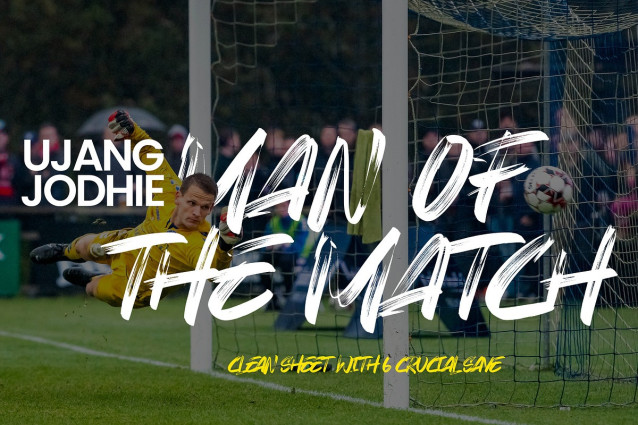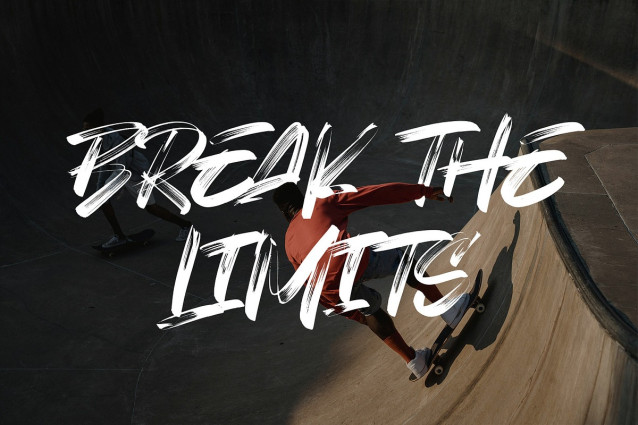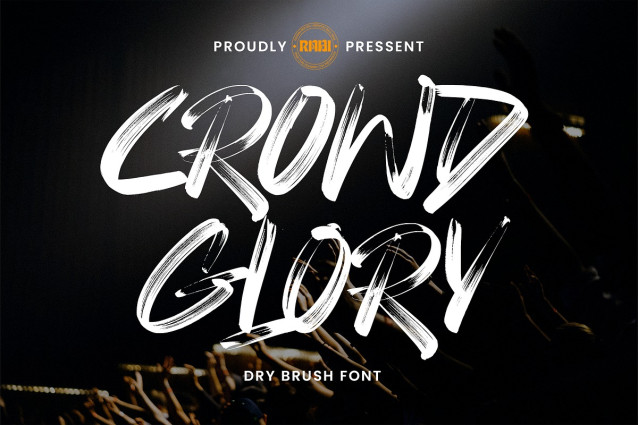
Crowd Glory Font
Crowd Glory Font is a bold and energetic brush font with strong, expressive strokes, creating a dynamic and fearless look. Inspired by the electrifying atmosphere of crowds at concerts and sporting events, this font is perfect for designs that demand a raw, action-packed feel.
Its signature dry brush texture gives it an authentic hand-painted appearance, adding a natural and character-rich touch to your typography. Ideal for branding, music posters, merchandise, apparel, and any creative project that needs a powerful and passionate vibe.